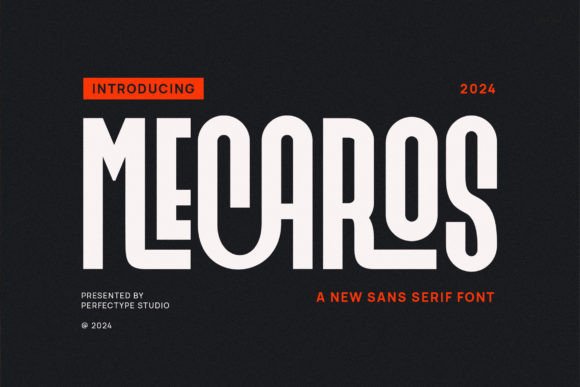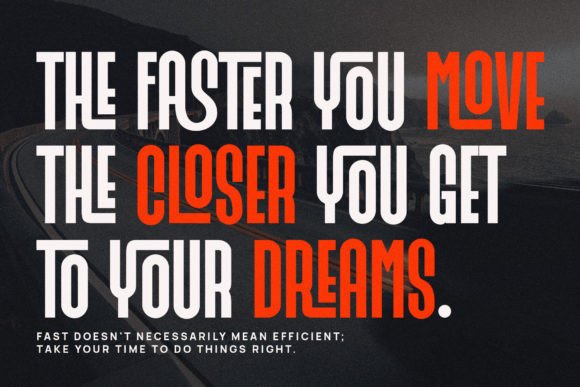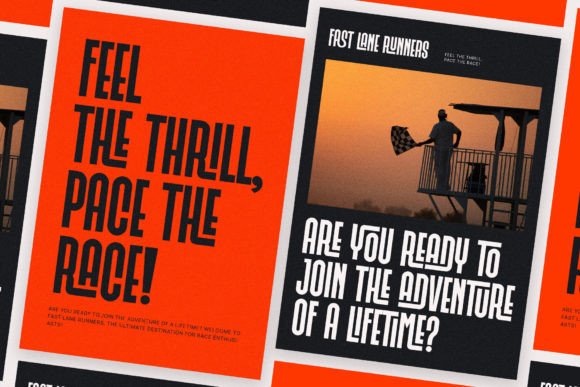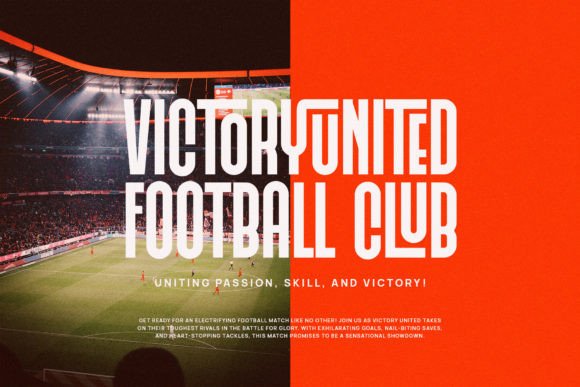
Mecaros Font: A Bold Sans Serif for Modern Logo Design & Headlines
About the Mecaros Font
From logos to headlines, the Mecaros Font is the perfect choice for making a lasting impression. This typeface encapsulates a rhythm that is symmetrical and balanced due to a unique mix of different sources of inspiration. Proportions are precisely adjusted with subtle contours and subtle contrasts. These shapes give the font an attractive look without compromising on elegance and minimalism, ensuring that any glyph will work well in any graphic design purpose such as brochures, videos, advertising branding, logos, magazines, layout designs, posters, post templates, games and others.
Mecaros Font Usage Examples
Mecaros Font Example